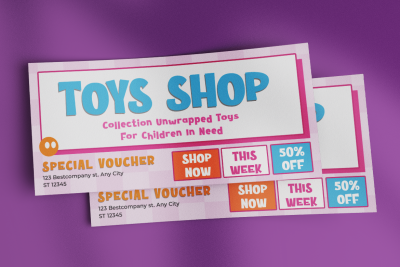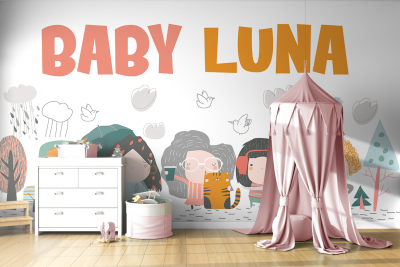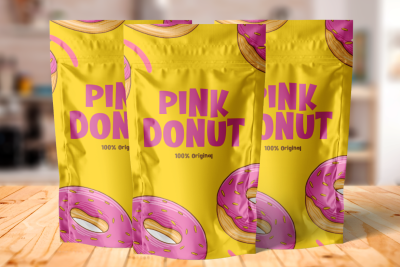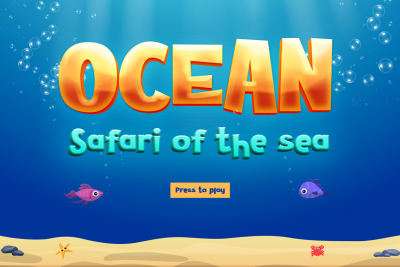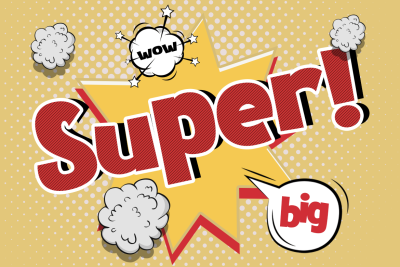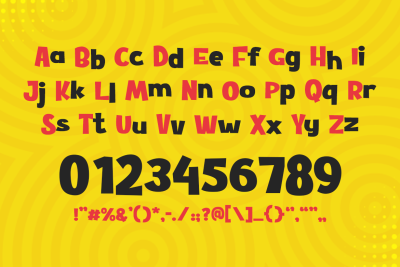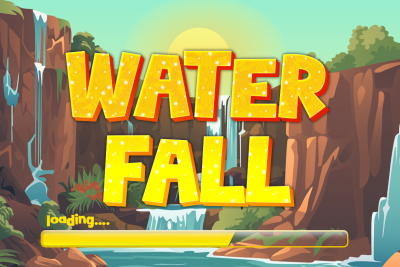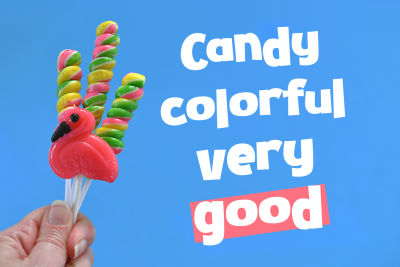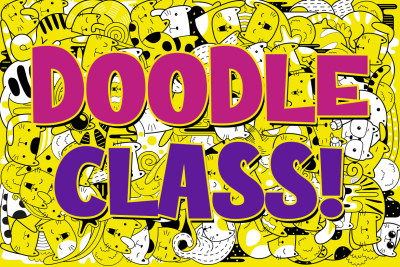
Funny font Beachwave is a vibrant and playful typeface designed to bring the energy of the ocean to your creative projects. With its bold, slightly wavy letterforms, this font captures the movement and excitement of crashing waves. Moreover, its smooth yet dynamic style makes it perfect for designs that need a fun, beachy, and carefree aesthetic.
Additionally, Beachwave stands out due to its bold strokes and slightly irregular shapes, mimicking the natural flow of water. The fontโs casual yet structured look ensures readability while maintaining a lighthearted and energetic presence. Whether you’re designing summer-themed posters, tropical branding, or eye-catching social media content, this font guarantees a refreshing and lively appeal. Furthermore, its versatility allows it to work seamlessly across print and digital formats, making it an excellent choice for designers looking to infuse a summer vibe into their work.
Funny Font Beachwave Perfect For
Beachwave is an ideal choice for designers, brands, and creatives looking for a typeface that embodies the fun and relaxation of the beach. Specifically, it works best in the following applications:
- Summer and Beach-Themed Designs: For example, use it to create posters, flyers, and promotional materials for summer festivals, beach parties, and tropical events. Its fluid and dynamic style fits perfectly with the theme.
- Travel and Vacation Branding: Similarly, it is ideal for travel agencies, beach resorts, or vacation-related businesses. Since it has a fresh and inviting aesthetic, it helps brands stand out in the tourism industry.
- Event Invitations and Party Decor: In particular, apply it to invitations for beach weddings, pool parties, or summer gatherings. The playful and wavy letterforms set a fun and laid-back tone.
- Social Media Graphics and YouTube Thumbnails: Additionally, use it to enhance Instagram posts, Facebook ads, or tropical-themed video content. The bold and eye-catching design ensures high engagement.
- Surf and Water Sports Branding: Likewise, it works well for surf shops, water parks, and adventure brands. The fontโs movement-like style mirrors the energy of ocean waves.
- Merchandise and Apparel: Furthermore, apply it to T-shirts, tote bags, and souvenirs. The lively typography makes any product feel more fun and adventurous.
- Childrenโs Books and Educational Materials: Finally, use it for book covers, chapter titles, or ocean-themed learning materials. The fontโs playful and engaging nature makes it a great fit for young audiences.
Overall, Funny font Beachwave is the perfect choice for projects that need a bold, fun, and beach-inspired aesthetic. Thanks to its flowing, energetic shapes and carefree personality, it enhances everything from branding to digital content. Whether you’re working on vacation-themed designs, event materials, or social media graphics, this font ensures a fresh, exciting, and summery vibe.